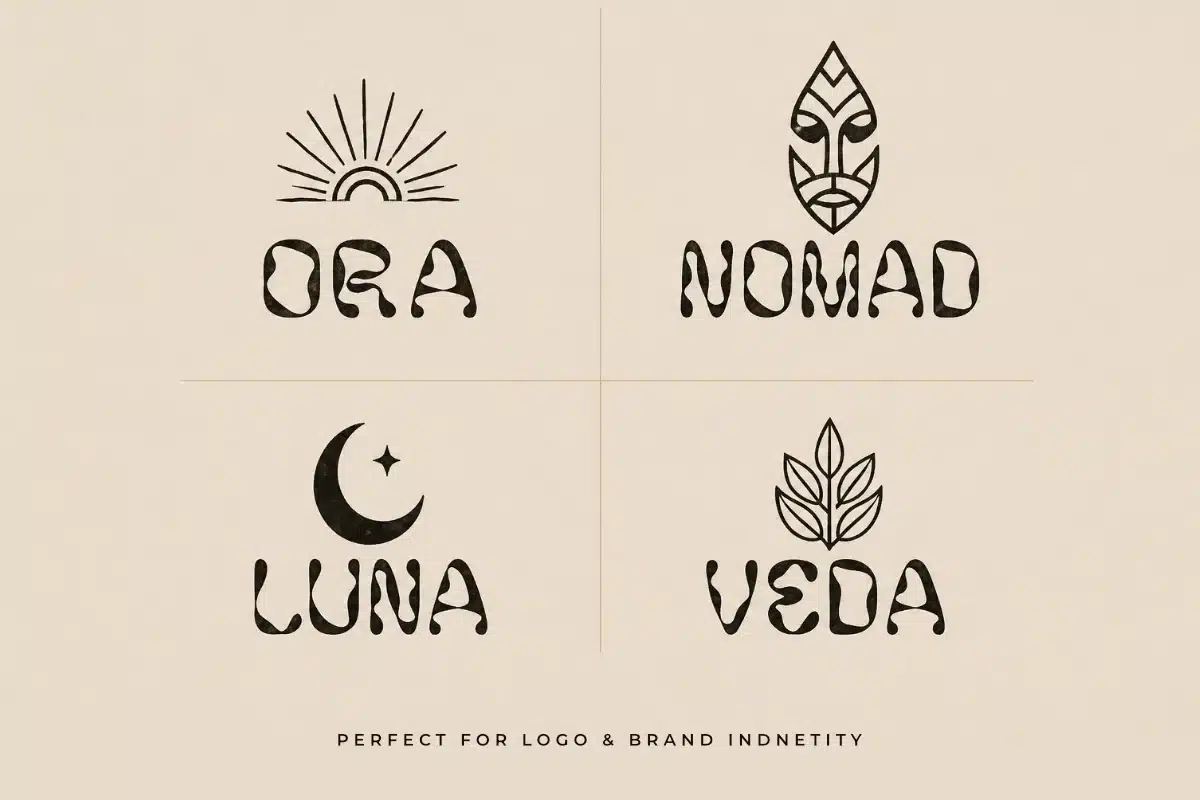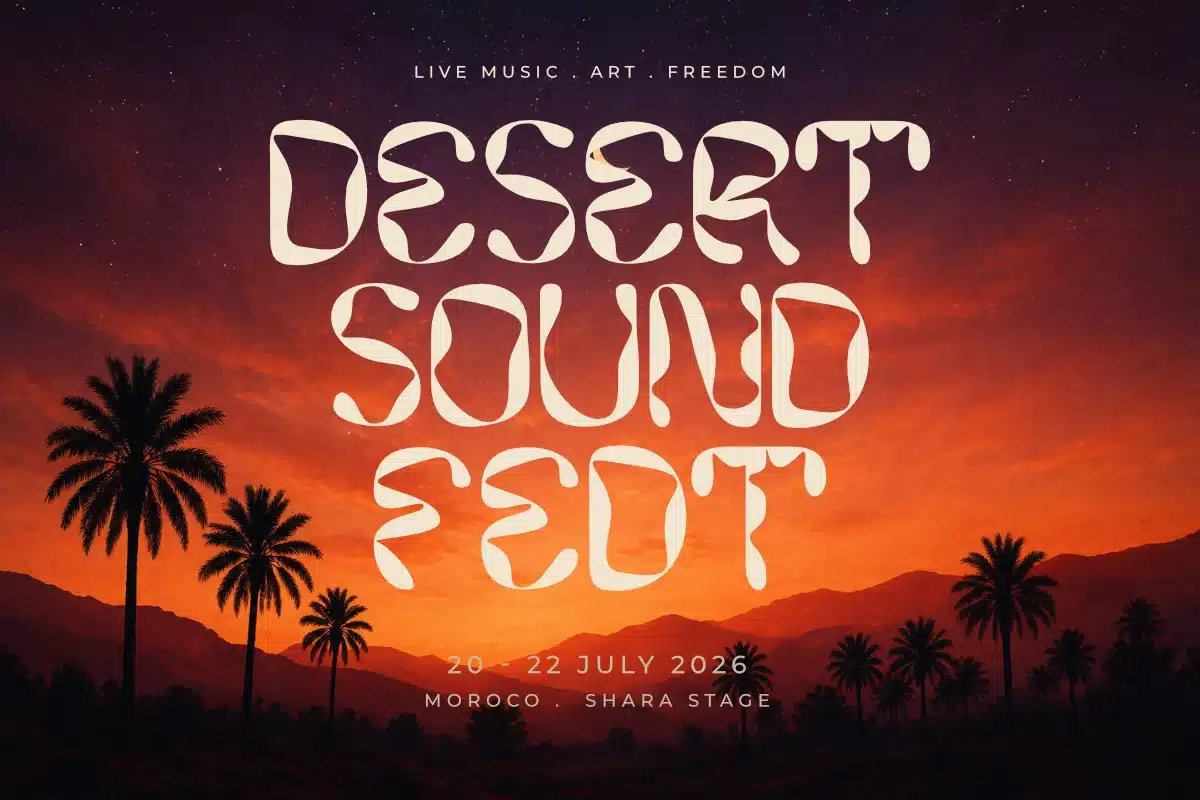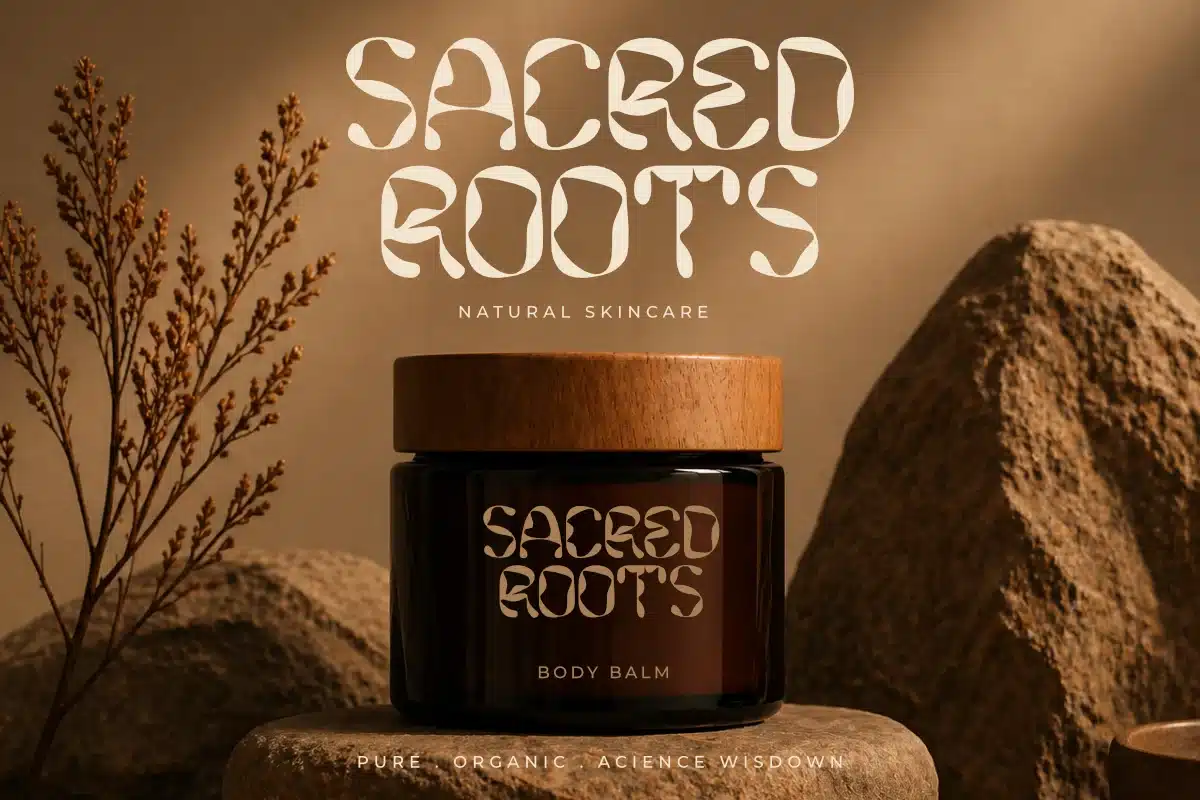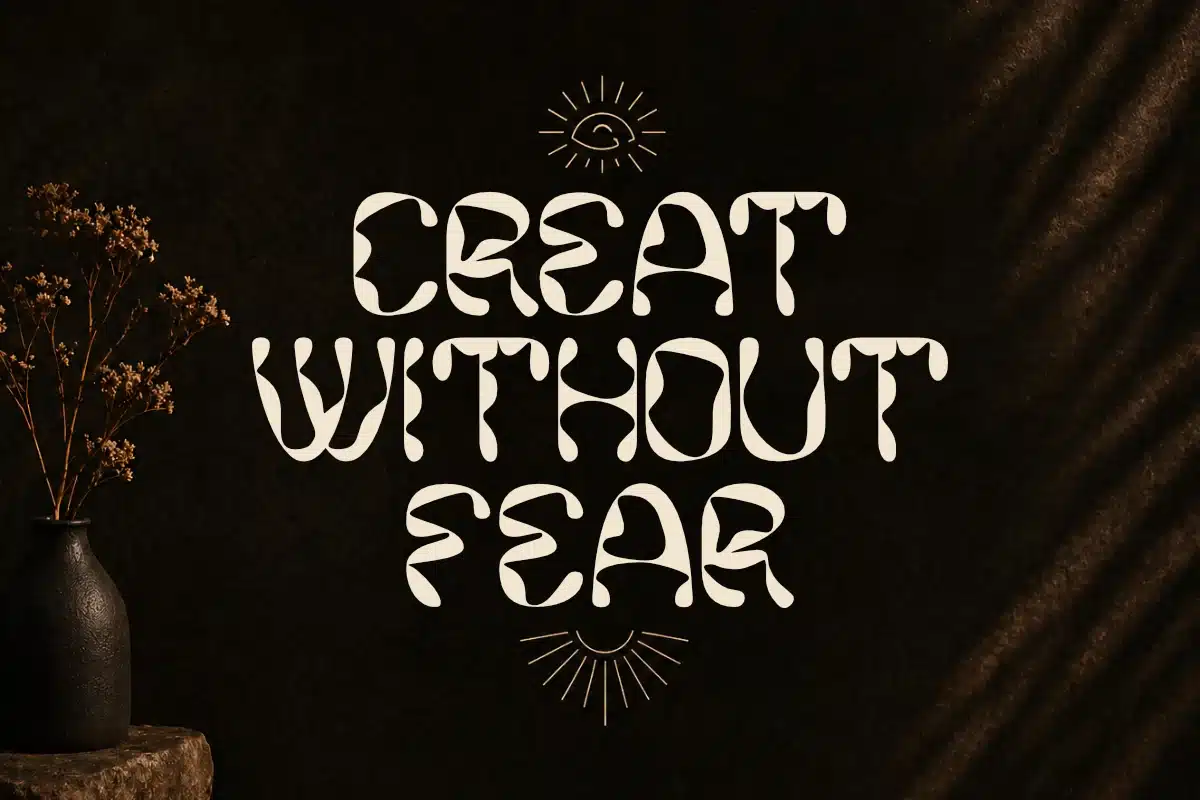
Morqen – Organic Decorative Typeface Font
\Morqen is a bold organic decorative typeface inspired by natural forms, tribal aesthetics, and experimental lettering. Its fluid shapes and irregular curves create a unique handcrafted feel, making it perfect for standout designs that demand personality and character.
Designed with a balance between raw expression and modern styling, Morqen delivers strong visual impact across a wide range of creative applications—from branding to editorial layouts.
This typeface includes stylistic alternates and ligatures, giving you the flexibility to explore expressive and distinctive typographic compositions.
Unique Organic Shapes